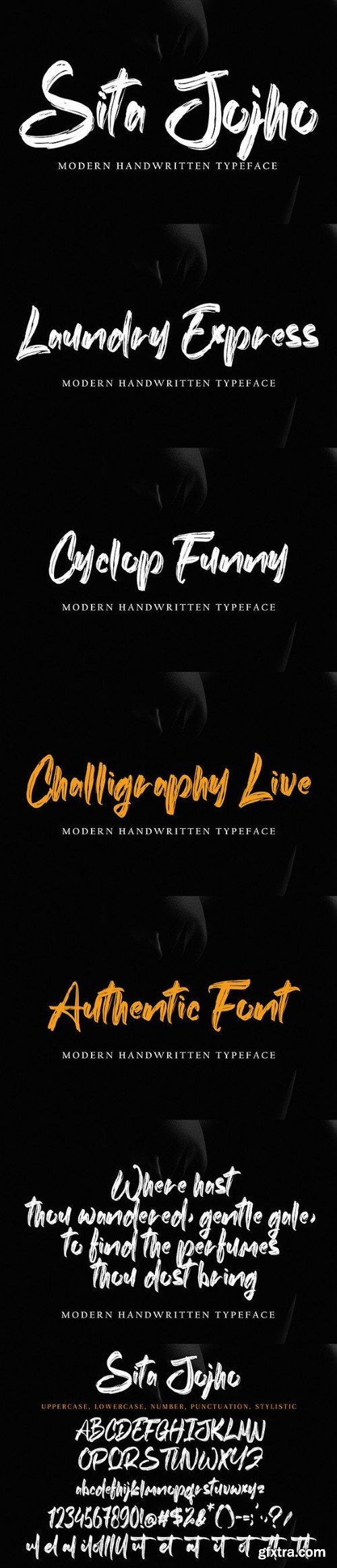
狮萨字体
Sita Jojho is a stylish script font, perfect for a variety of projects such as quotes, logos, watermarks, invitations, social media, cards and much more!